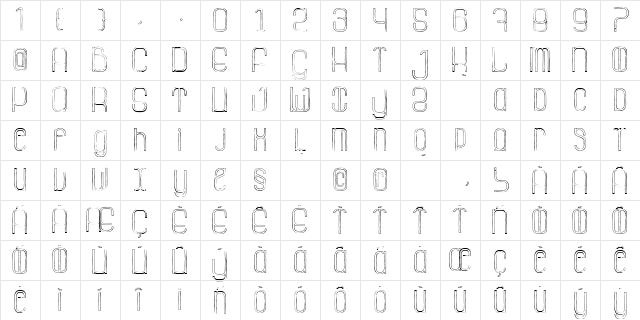
Complete La Grosse Cochonne Defaced Regular glyph index. Displaying only characters natively supported by La Grosse Cochonne Defaced Regular font.
La Grosse Cochonne Defaced is a composed and adaptable typeface that performs quietly and consistently across a wide range of design contexts.